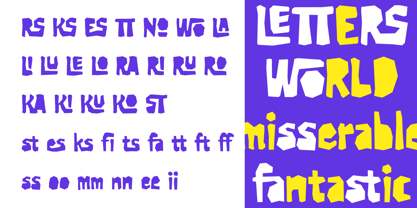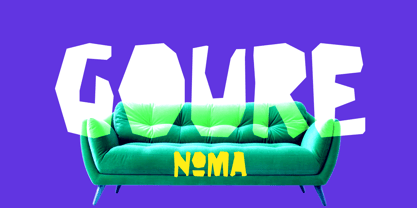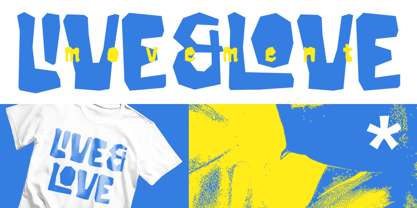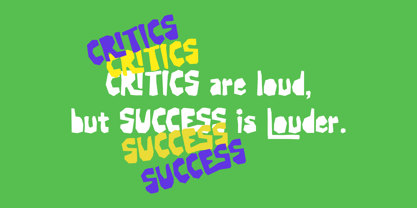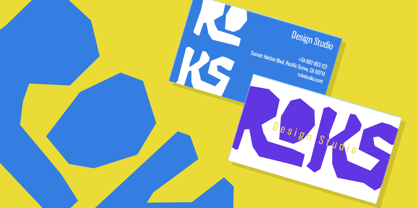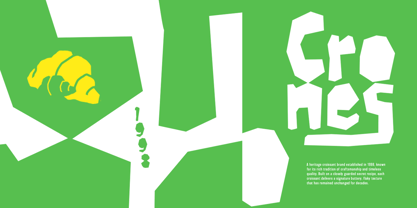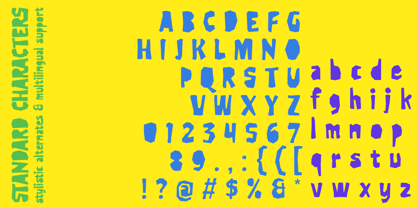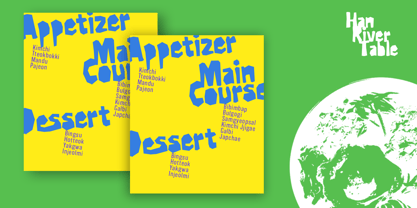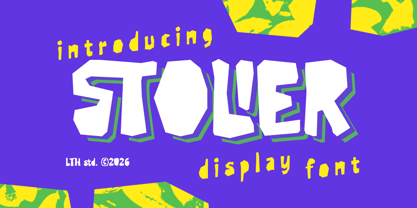
Stolier
by Letterhend
Stoler crashes onto the page with chunky uneven shapes, playful cutout edges, and loud chaotic energy that feels straight out of a pop-culture poster wall. This display font keeps things raw, funky, and a little messy in the best way possible, giving every word a bold handmade attitude. Perfect for posters, album covers, streetwear branding, zines, and creative projects that want to feel rebellious, fun, and impossible to ignore.
Features :
• Uppercase & lowercase
• Numbers and punctuation
• Alternates or ligatures
• Multilingual support